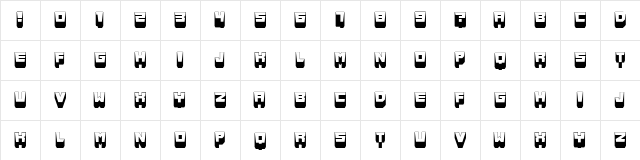
Metallic Shadow Flat Regular
Design Context for Metallic Shadow Flat Typeface
Metallic Shadow Flat is built around its visual character rather than neutral utility — its distinctive forms are designed to make an impression at display sizes.
Font Pairing: Pair with a clean neutral sans-serif for body copy to let Metallic Shadow Flat's character lead without overwhelming the composition.
Pro Tip: Treat Metallic Shadow Flat as the centrepiece of your typographic hierarchy. One strong heading set in a decorative face can carry an entire layout.